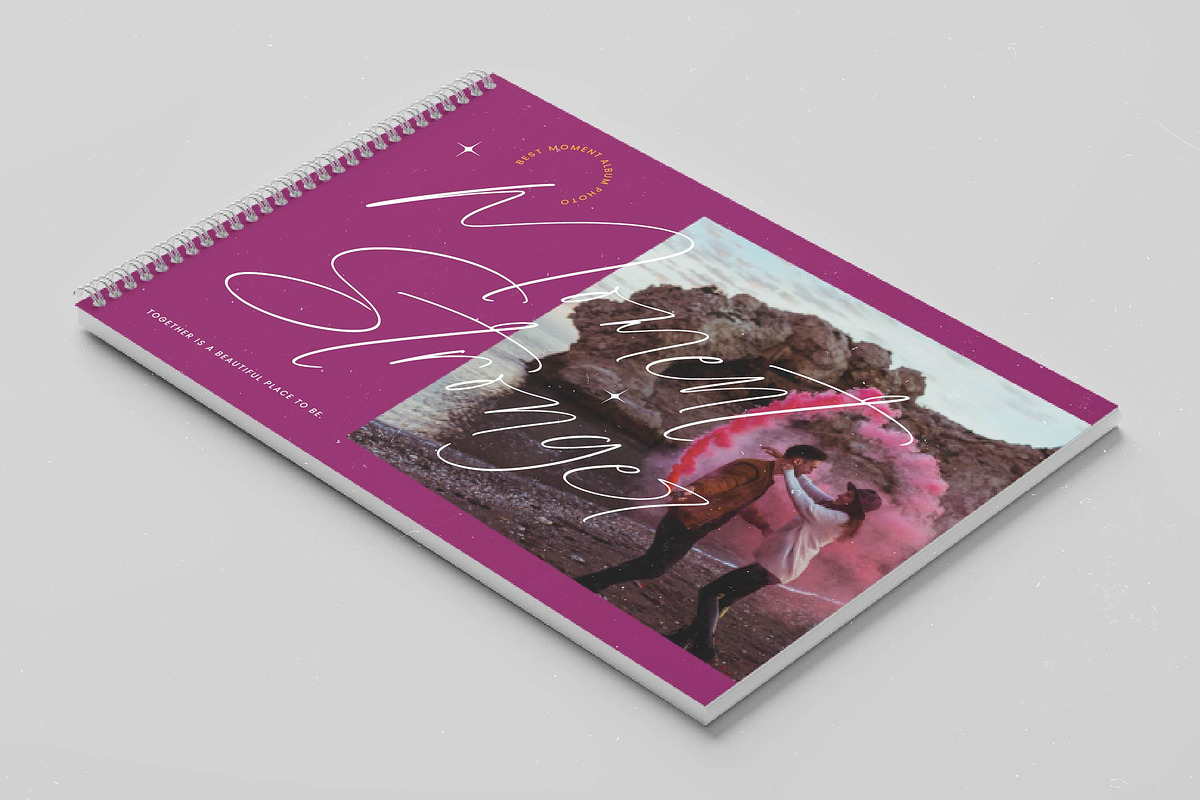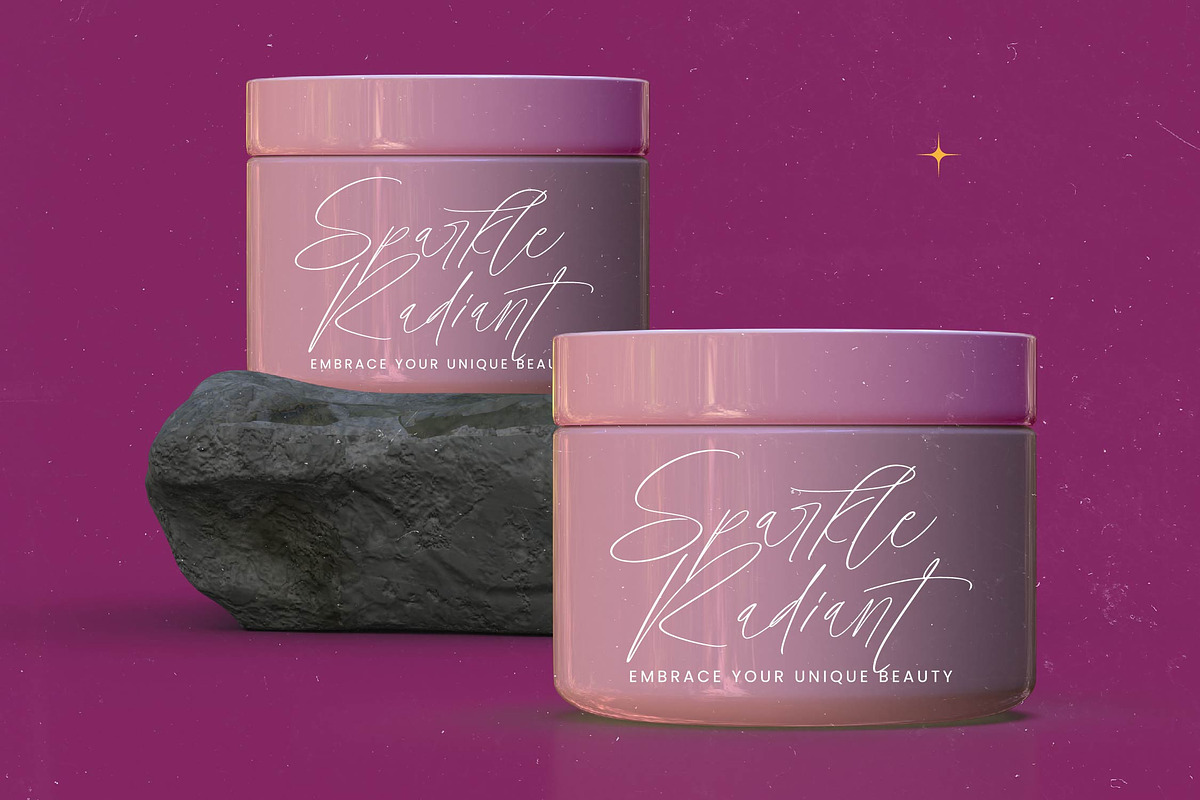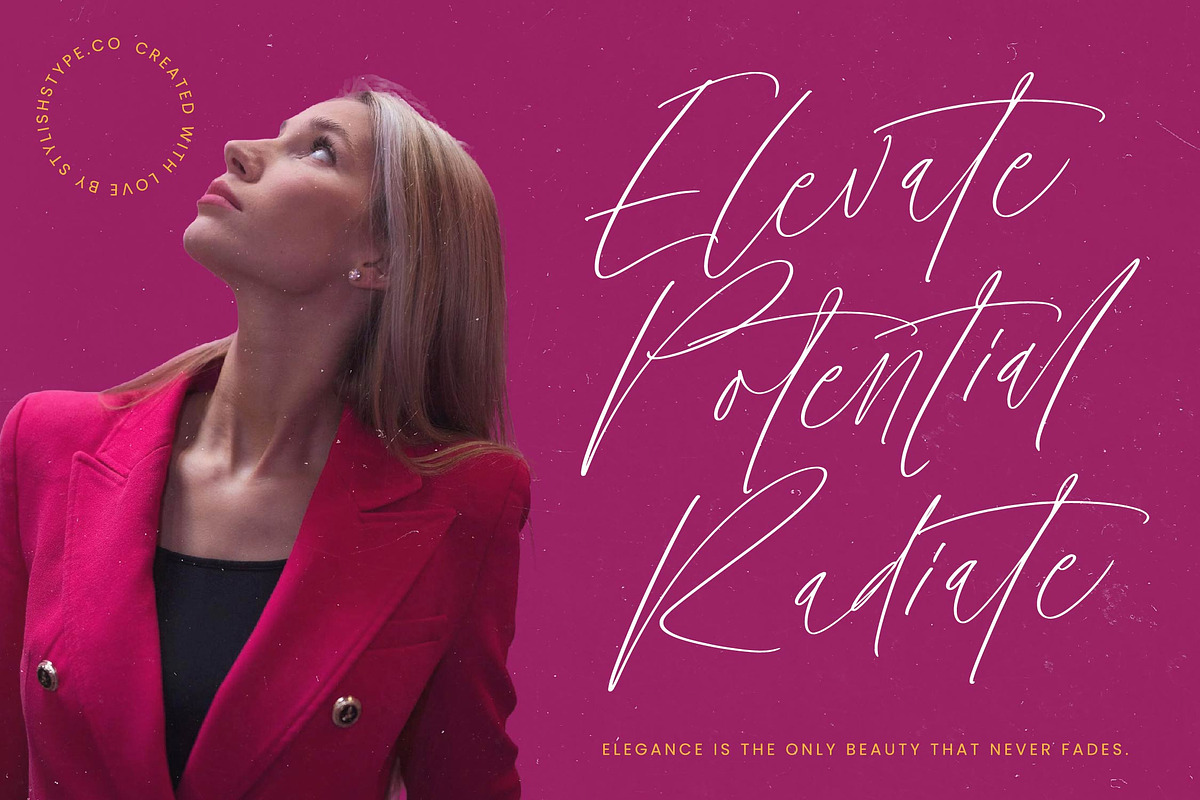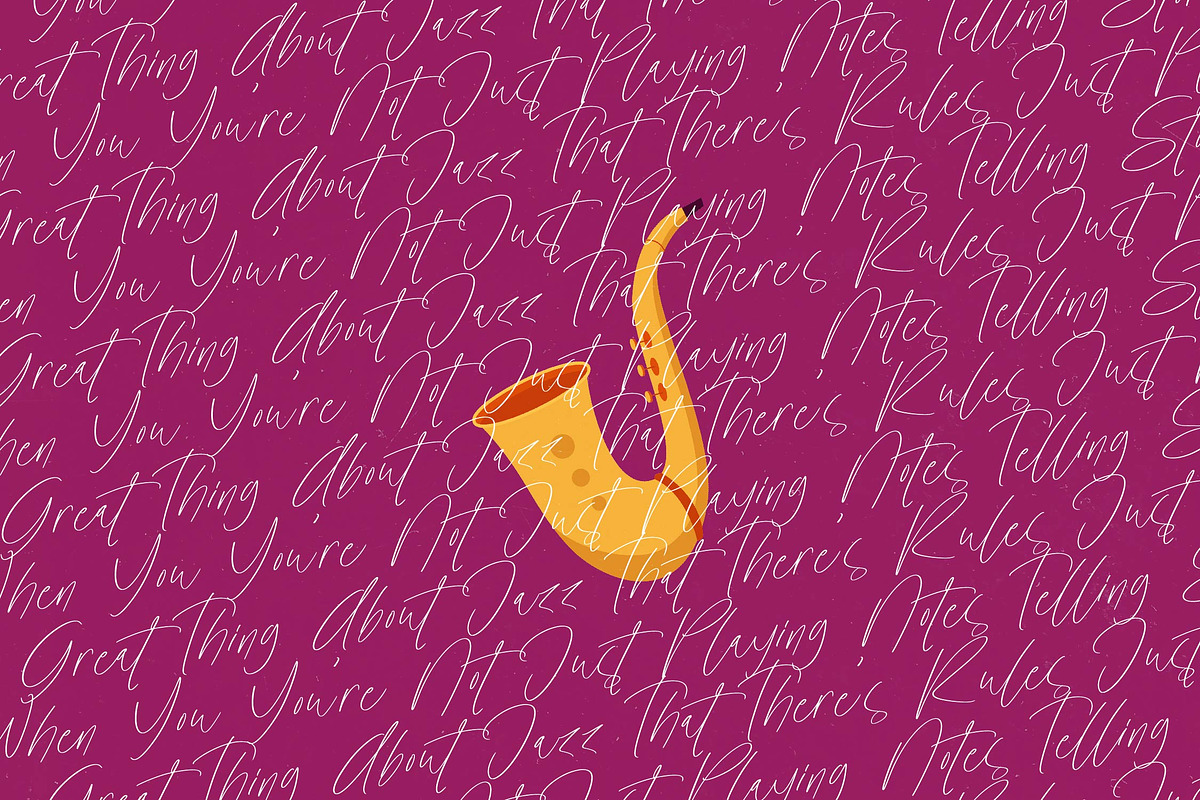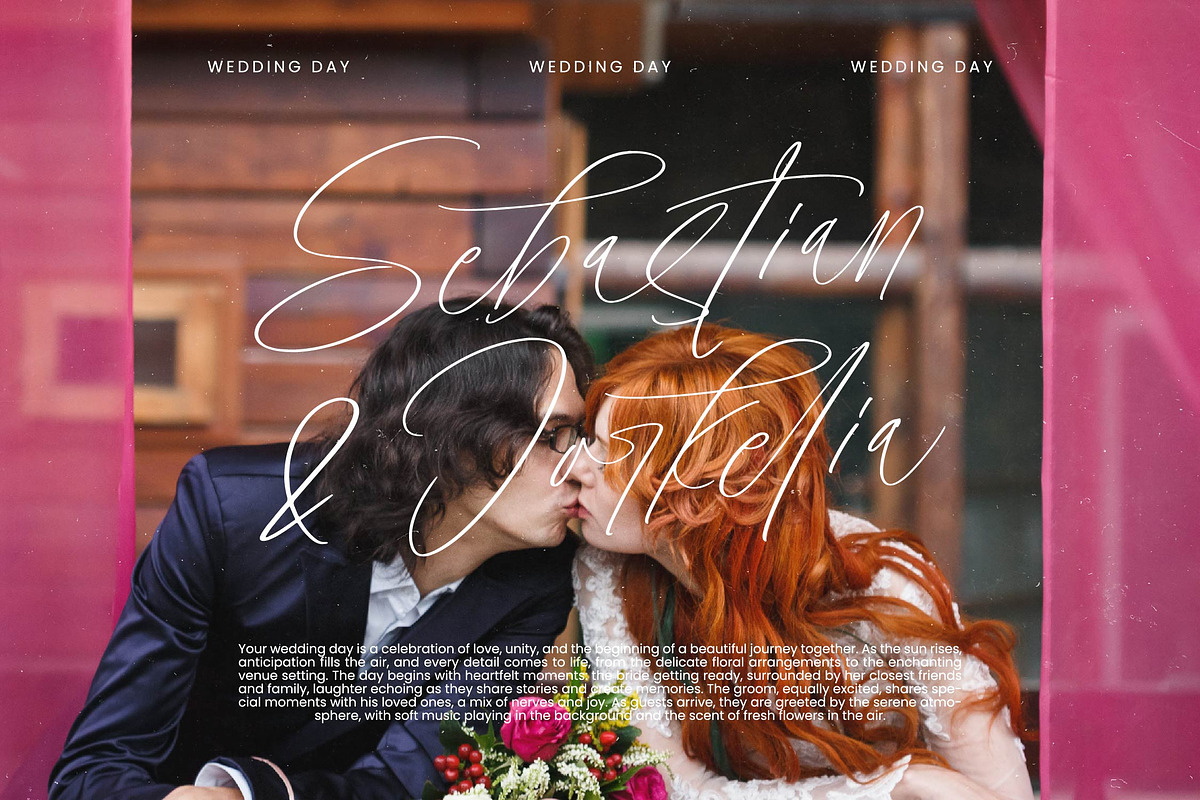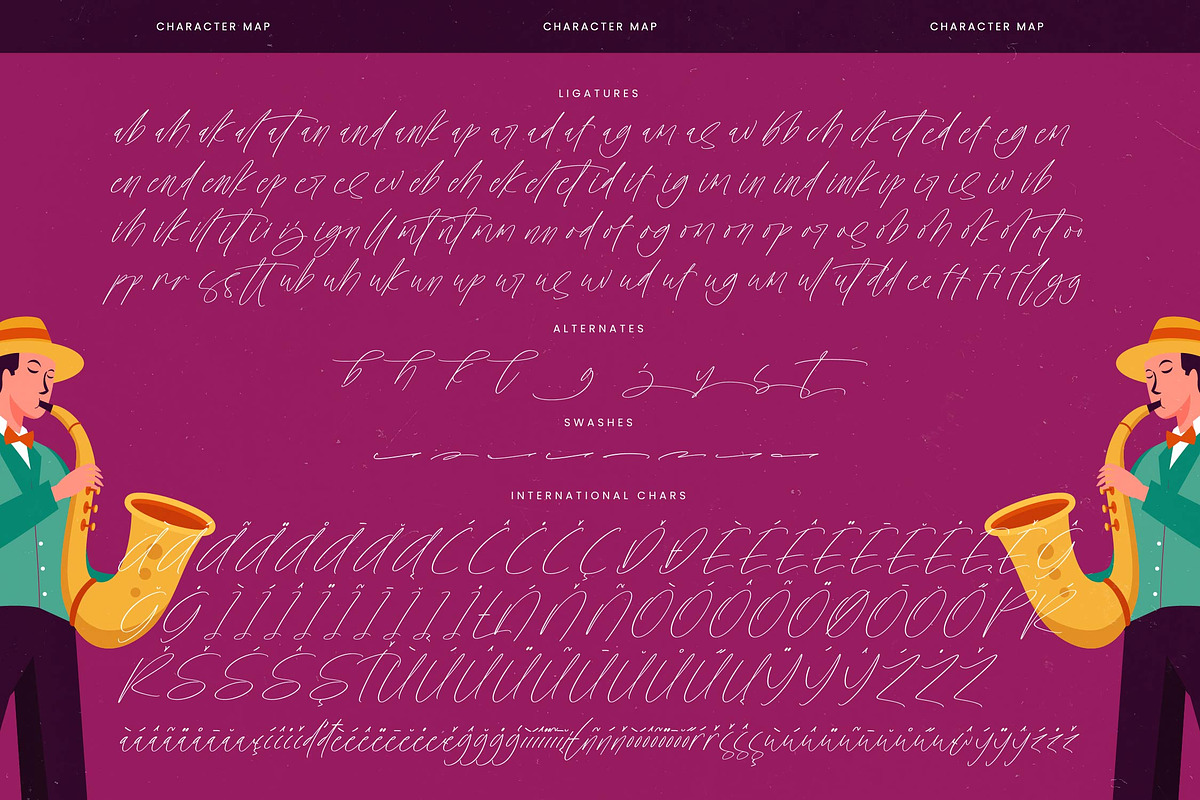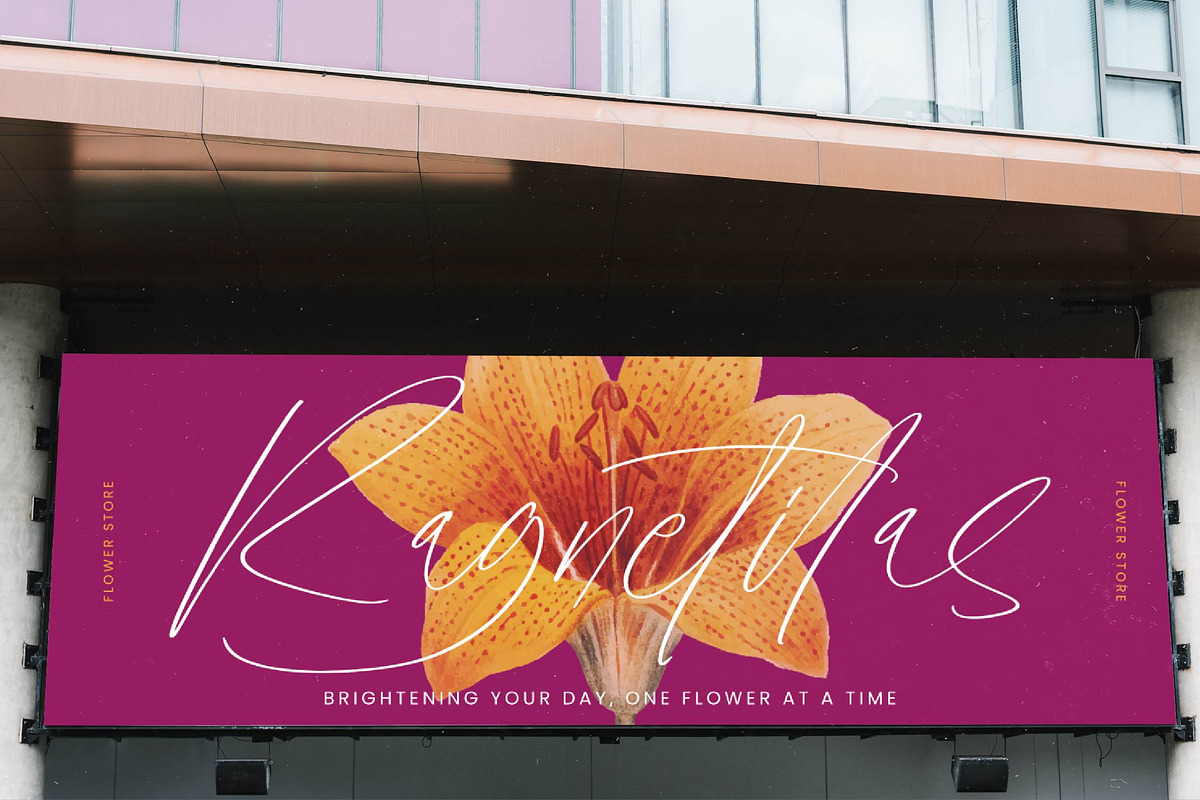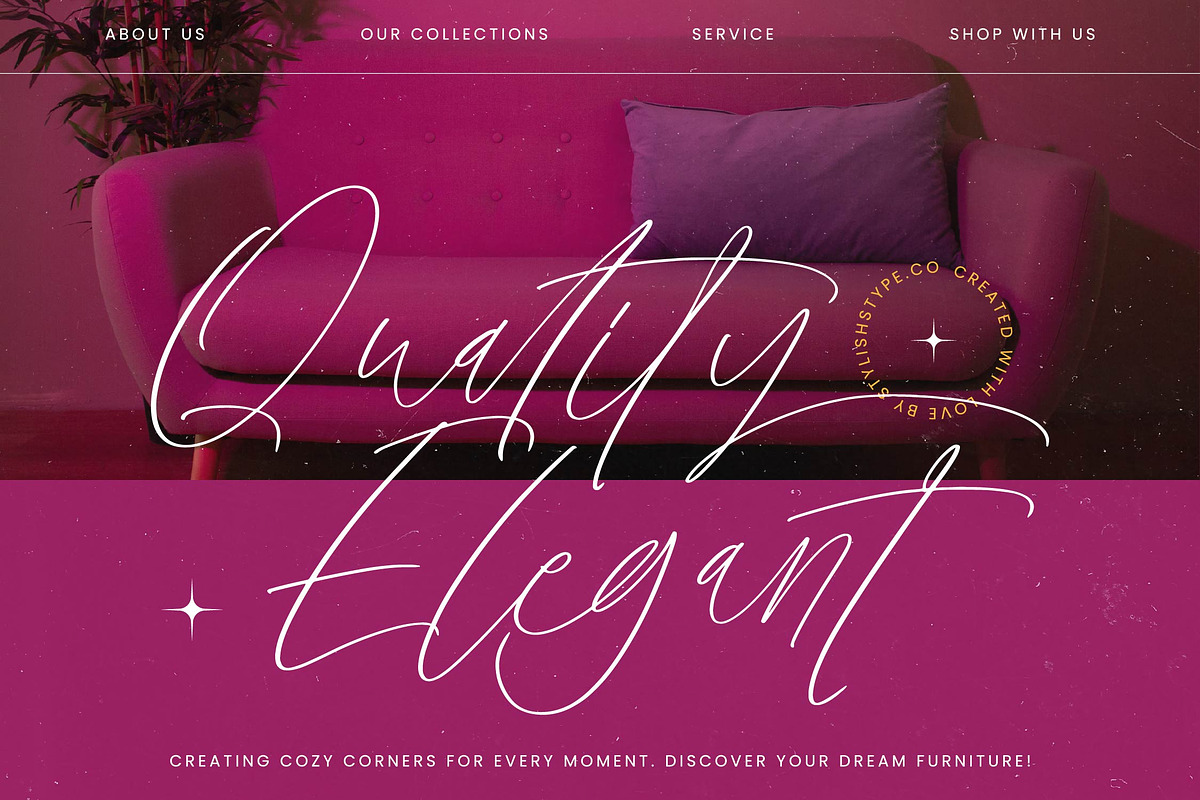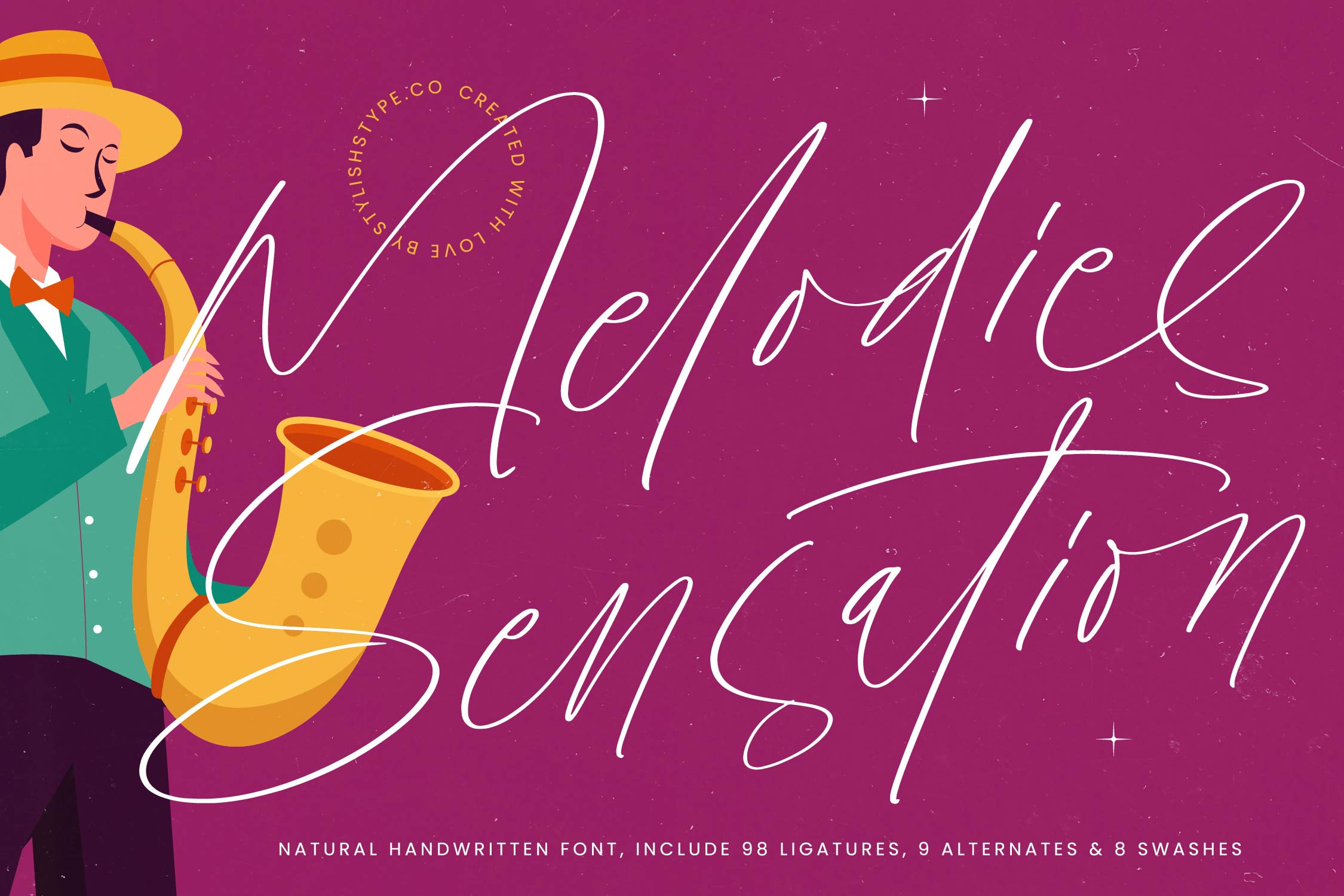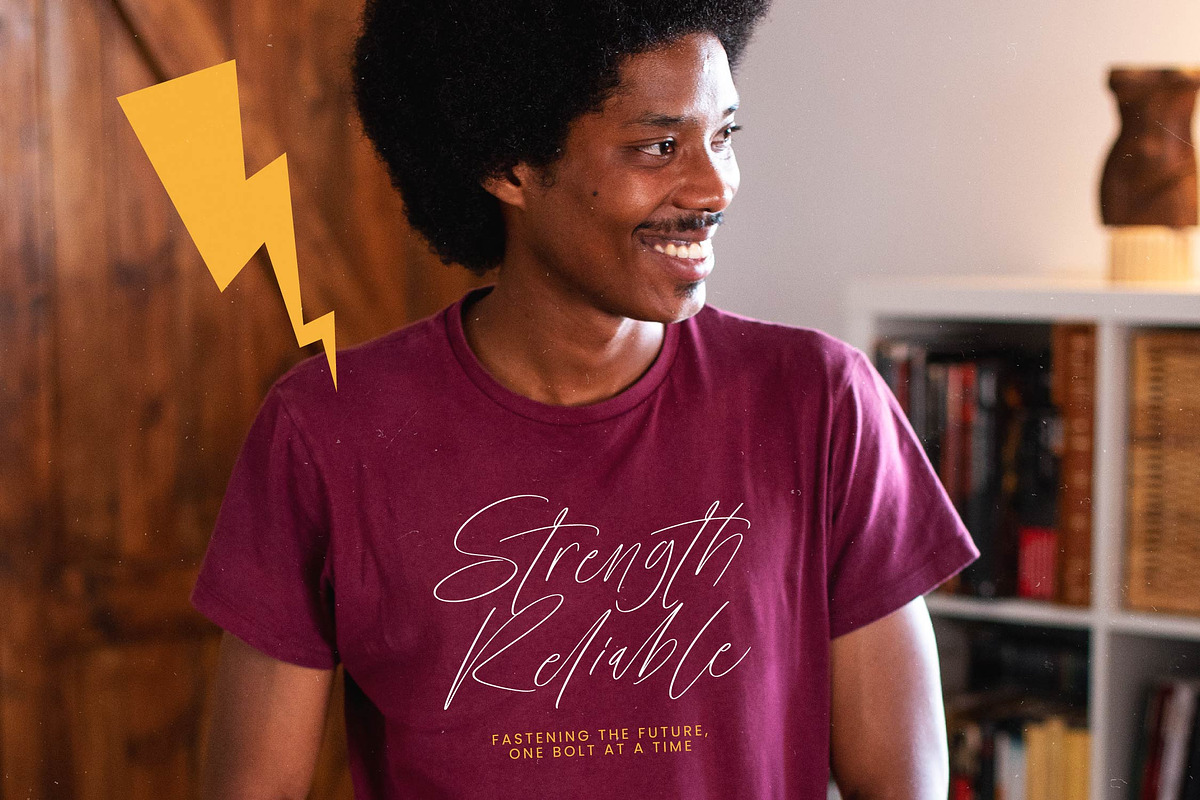
Melodies Sensation Natural Font
Melodies Sensation - Natural Handwritten Font , from Stylishtype.Co , Suitable for any projects such as: logos, branding projects, homeware designs, product packaging, mugs, quotes, posters, shopping bags, t-shirts, book covers, name card, invitation cards, greeting cards, label, photography, watermark, special events, and all your other luxury and beautiful projects that need a Luxury Script taste.
- 98 Ligature Alternates 9 & 8 Swashes